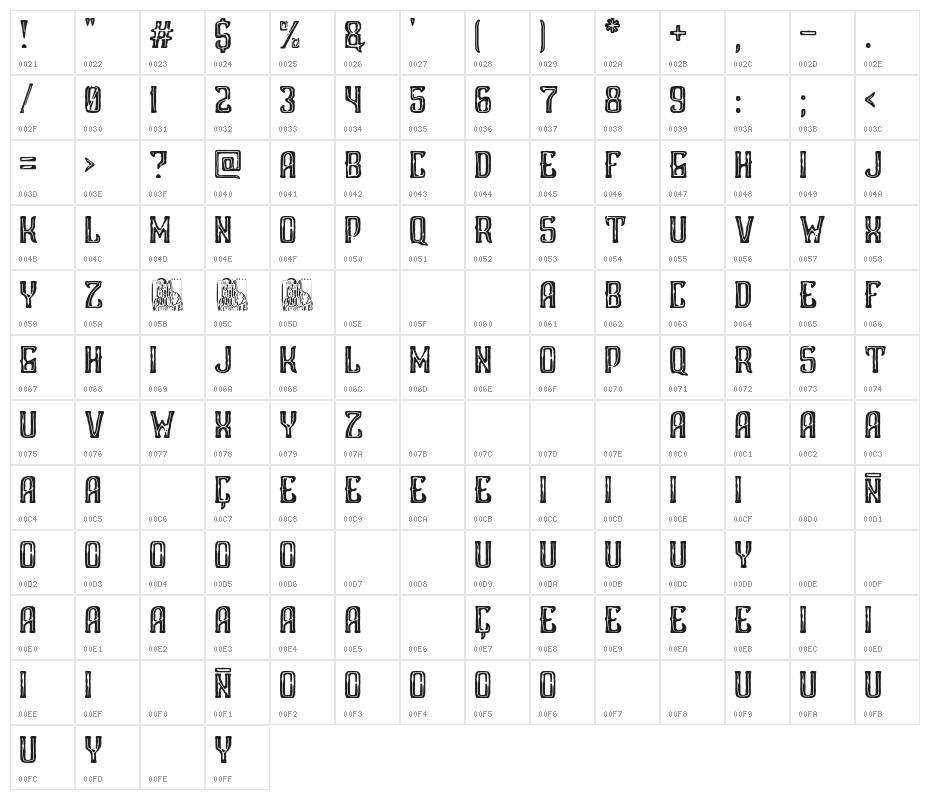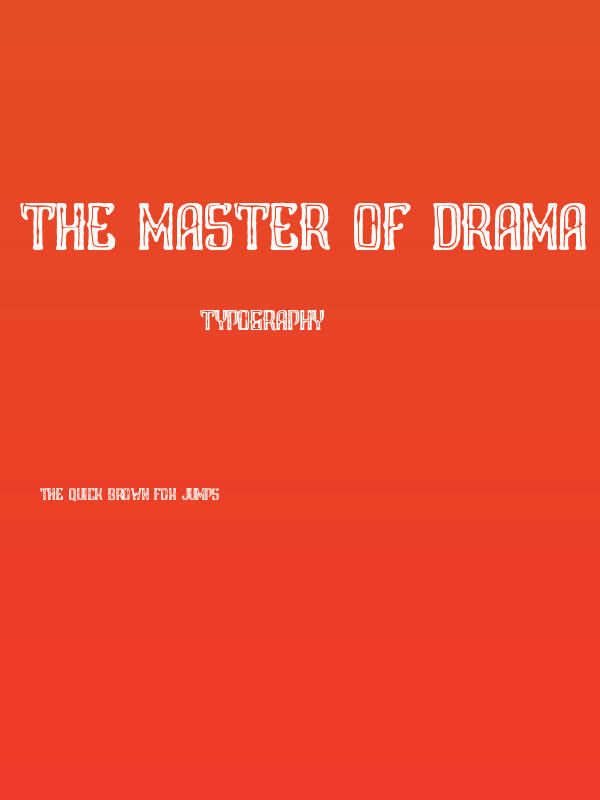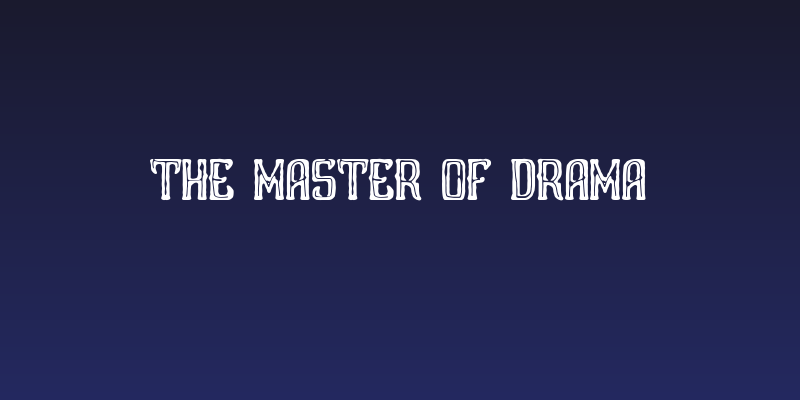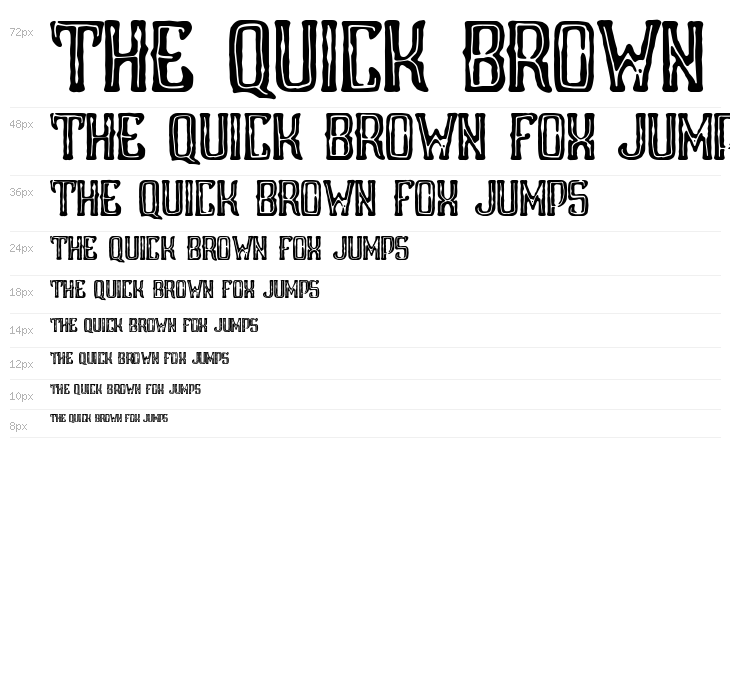
The Master of Drama Font
The Master of Drama Description
A bold, decorative display font with irregular, hand-drawn outlines and dramatic, theatrical shapes. The characters feature uneven stroke thickness and organic, almost melting contours, giving a sense of movement and intensity.
| Overall Style | Decorative, Dramatic, Theatrical |
| Use Case | Headlines, Posters, Logos, Event Titles |
| Proposed Projects | Posters, horror or thriller movie titles, event flyers, Halloween themes, book covers, dramatic branding. |